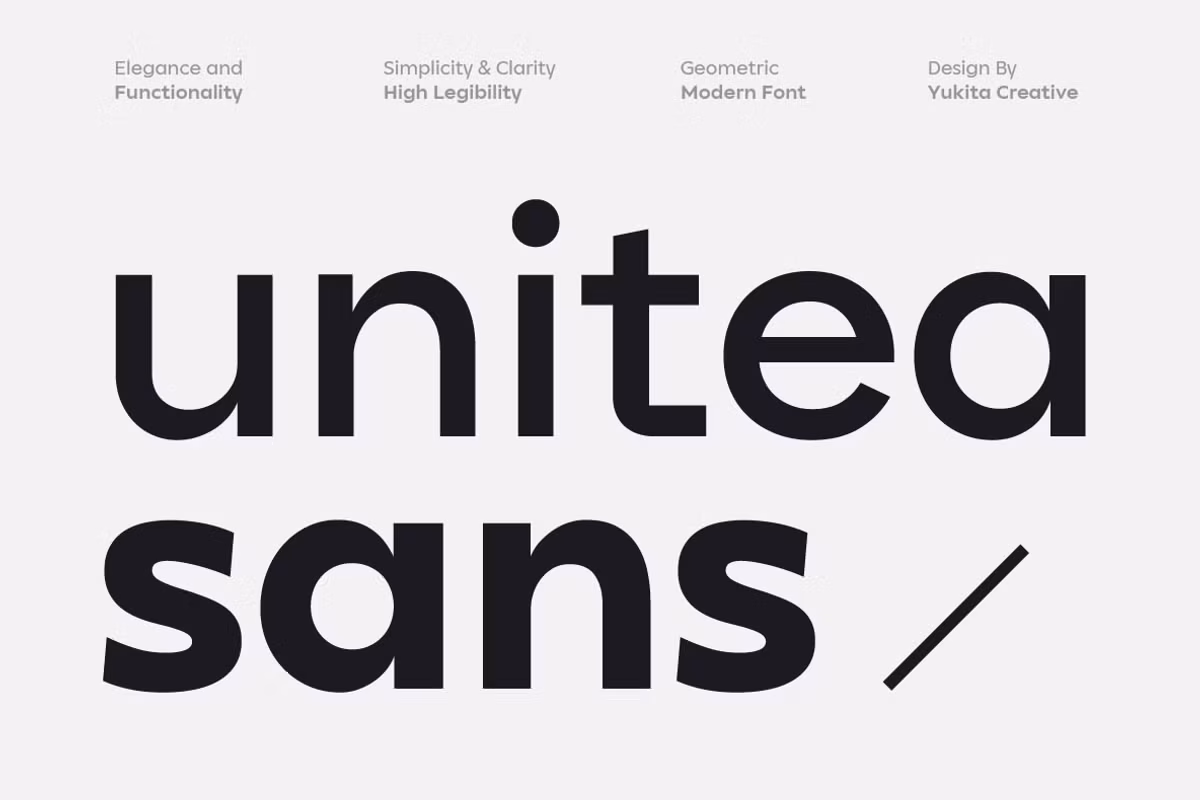
Please note, you must purchase this font for commercial use. However, you can easily download Unitea Sans Serif Family Font Free Download for personal use and testing purposes. Unitea Sans Serif Family Font is a modern, clean, and versatile typeface that features multiple weights and styles, making it perfect for a wide range of design projects. Whether you're working on branding, editorial layouts, websites, or logos, this font family offers excellent readability and a sleek, professional look. Its contemporary design makes it suitable for both digital and print projects, providing a sophisticated feel to your typography. Download Unitea Sans Serif Family Font Free Download today and explore its potential before opting for a commercial license.